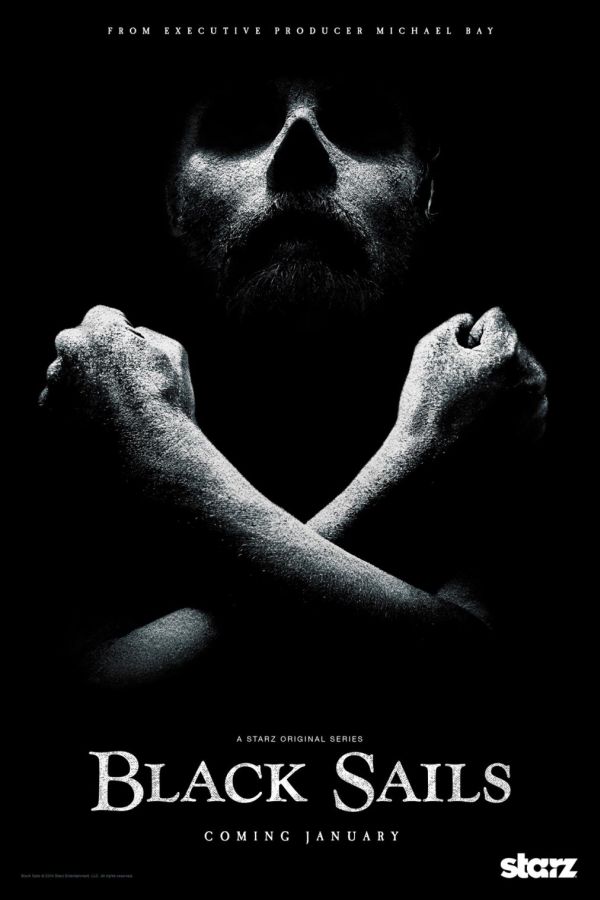
Black Sails Font
AdventureBlack Sails is an American dramatic adventure television series first broadcast on Starz in January 2014. "Black Sails" is a pirate adventure that centers on the tales of Captain Flint, who is known to be the most feared of all the Golden Age pirates.
In Black Sails, the title font is likely Monotype Goudy Bold, created in 1915 by Frederic W. Goudy for American Type Founders. You can view more details about the typeface here.